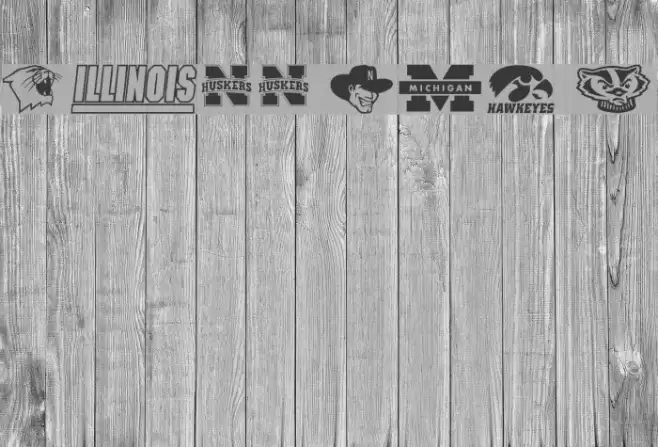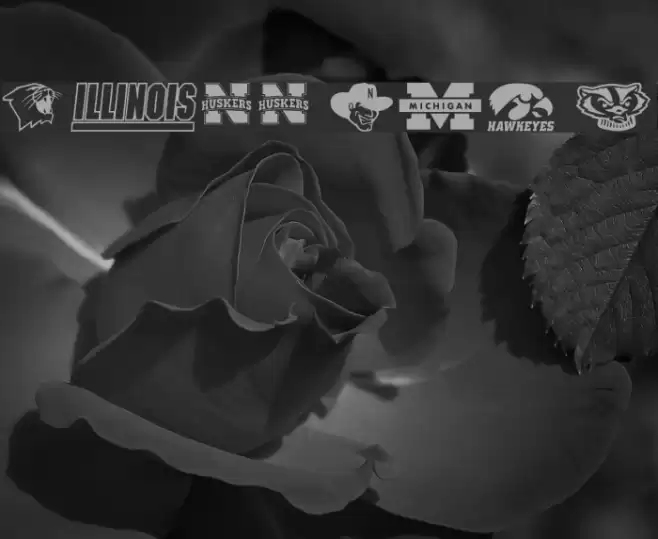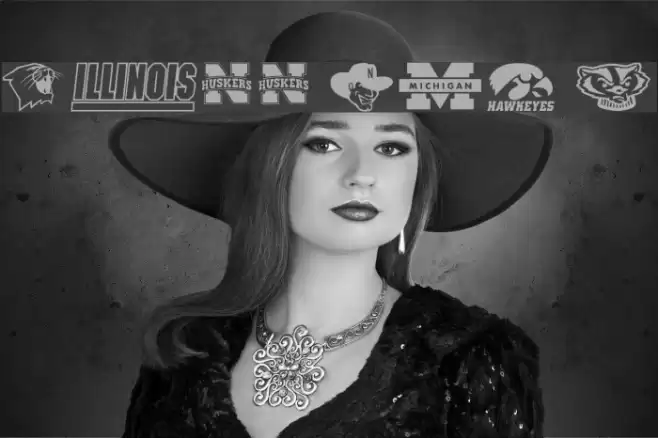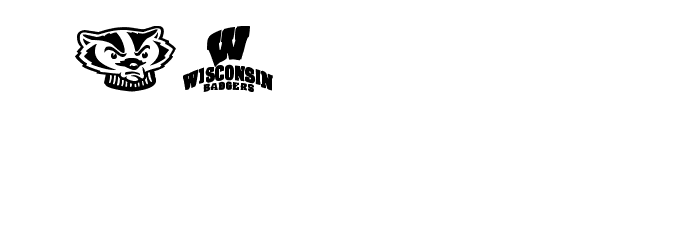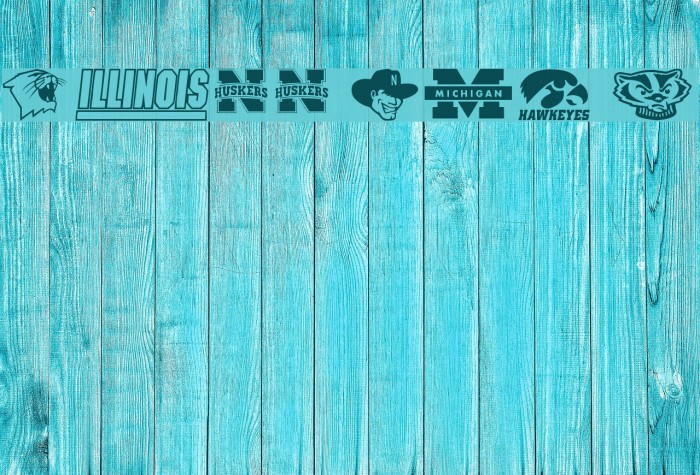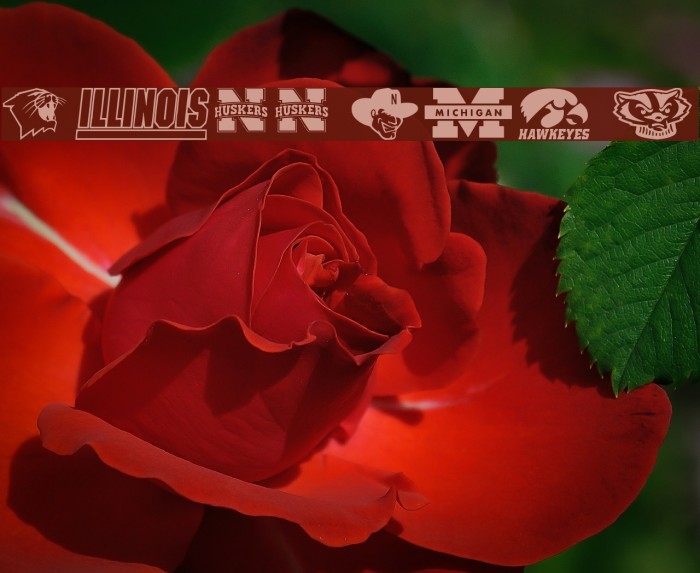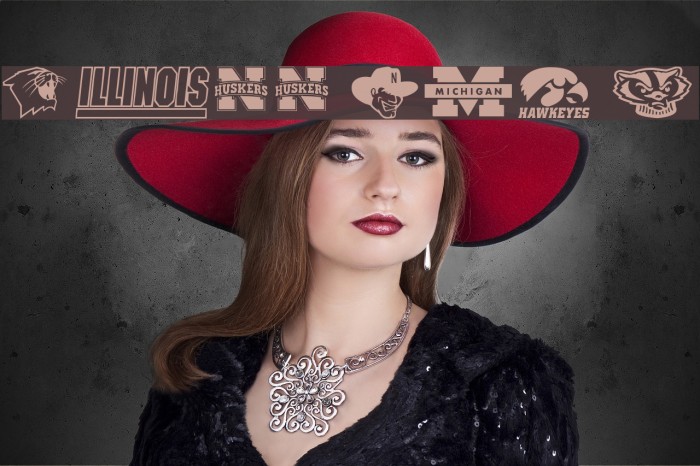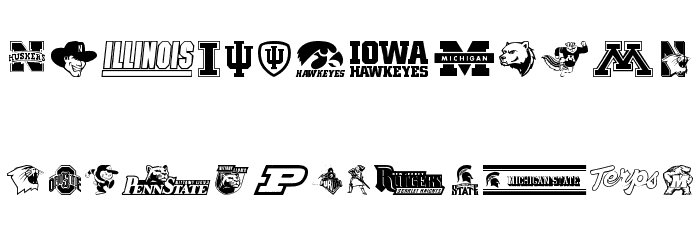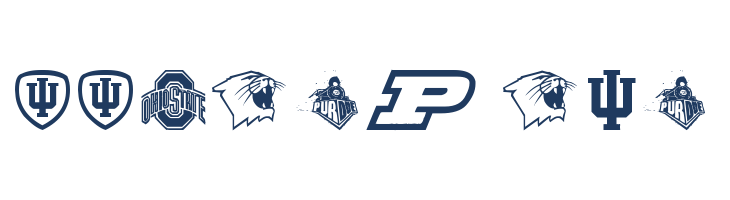
NCAA Big 10 Font
NCAA Big 10 Description
This image features a collection of logos and mascots representing various universities in the NCAA Big Ten Conference. Each logo is distinct, showcasing unique typography and design elements that reflect the identity and spirit of the respective institutions. The designs incorporate bold lettering, iconic symbols, and school colors, creating a visually striking representation of each university. The logos vary in style, with some featuring modern, sleek lines, while others have a more traditional or vintage appearance. The use of mascots and emblems adds a dynamic and engaging element to the overall composition.
A collection of NCAA Big Ten university logos and mascots with diverse typography and design.
- Overall Style: Modern and Traditional